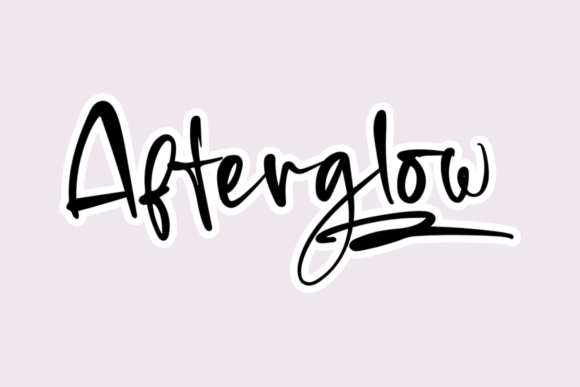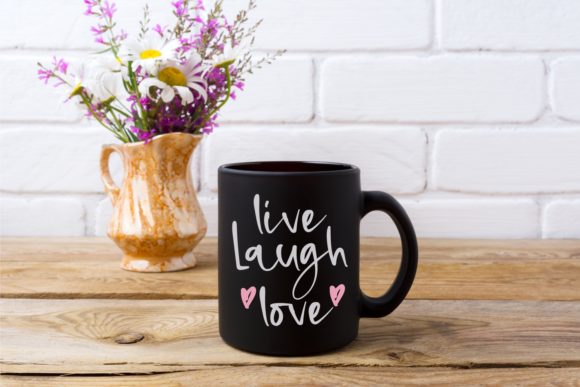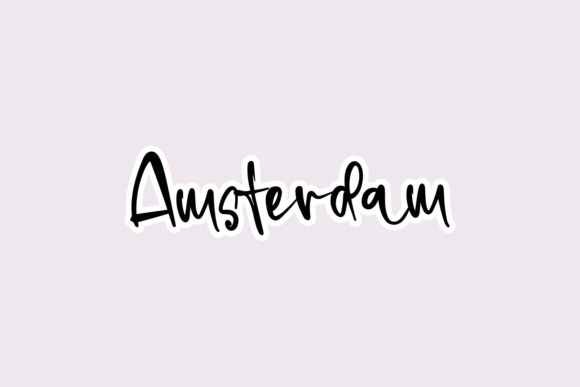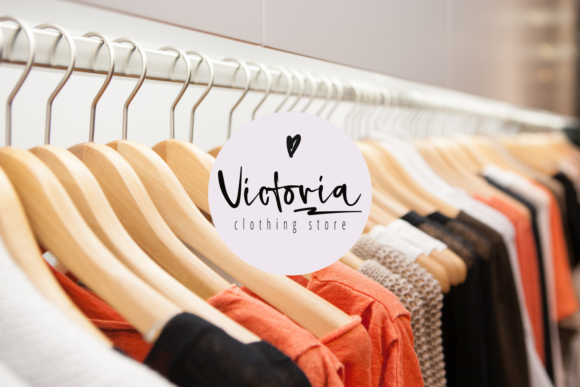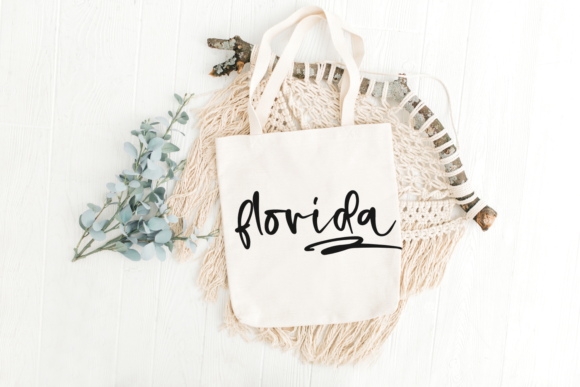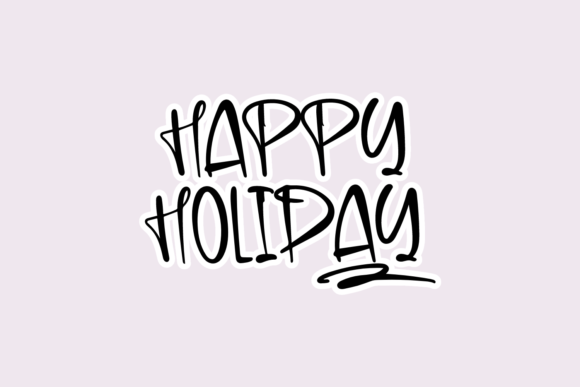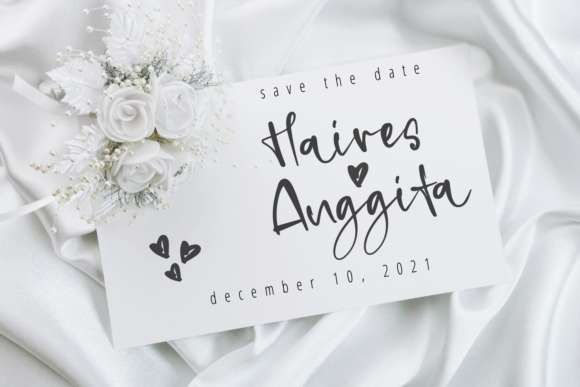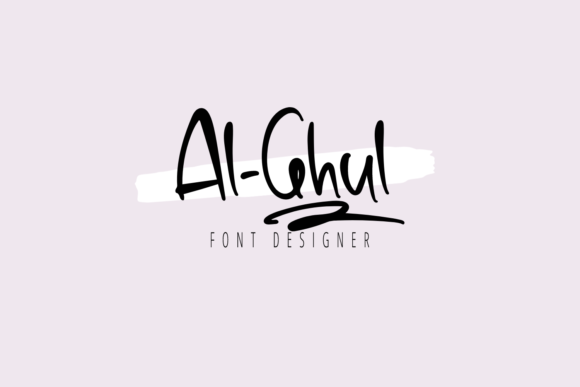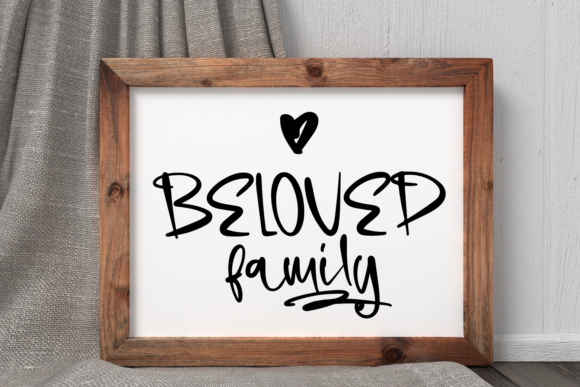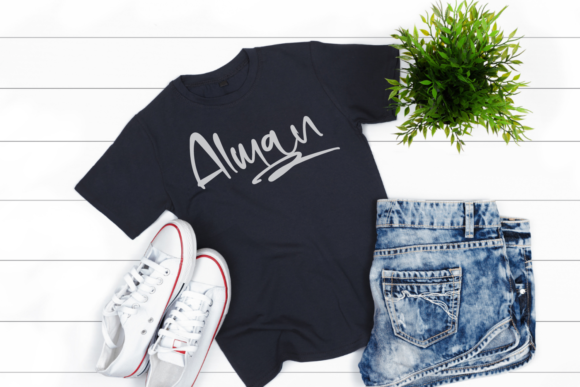
Afterglow Font
About Afterglow Font
Afterglow is an incredibly distinct, delicate, and timeless handwritten font featuring a lightweight style. It is great for crafters and graphic artists alike. Its playfulness makes it great for almost all creative projects!